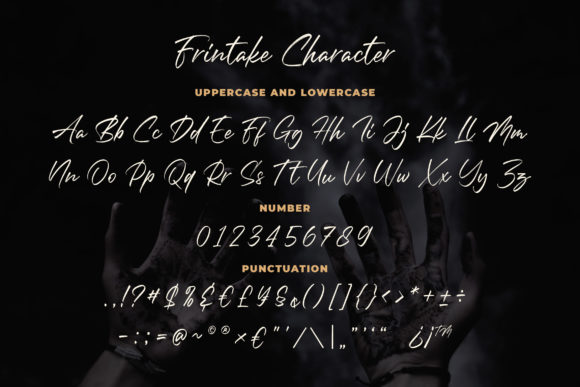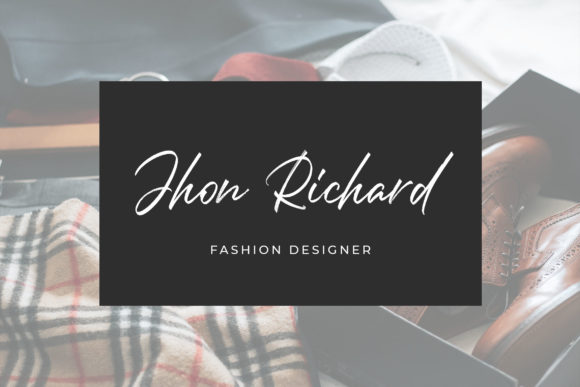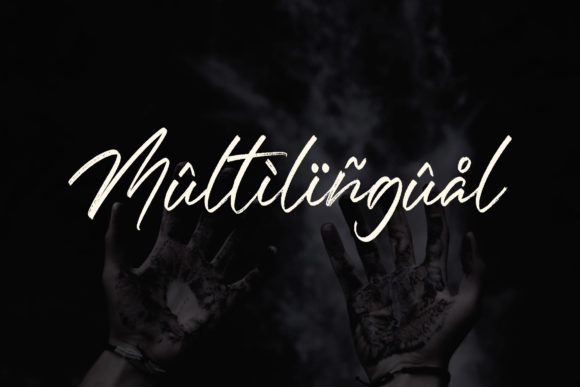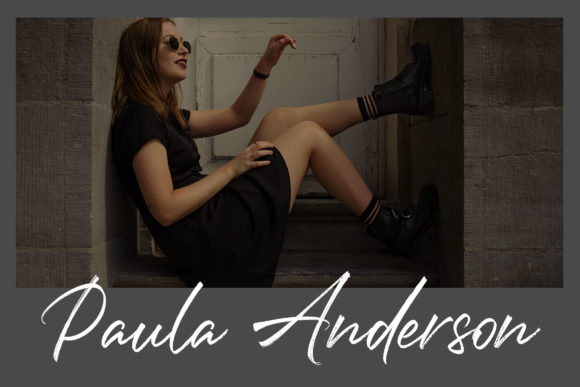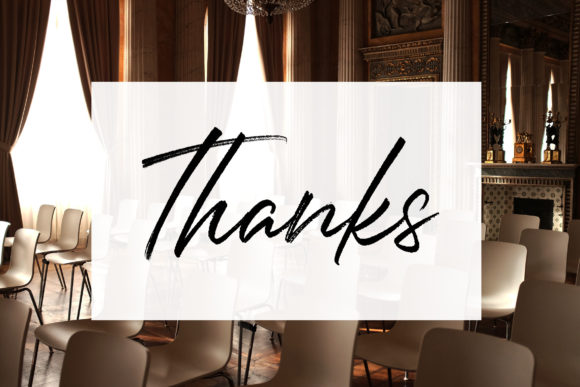
Introducing Frintake Font: The Ultimate Brush Calligraphy Font for Designers and Crafters
Are you a designer or crafter looking for a unique and versatile font to elevate your creative projects? Look no further than Frintake Font, a stunning brush calligraphy font that’s perfect for logos, signatures, branding, and any crafting project. In this article, we’ll dive into the world of Frintake Font, exploring its features, benefits, and uses, and provide you with valuable insights on how to make the most of this incredible font.
What is Frintake Font?
Frintake Font is a beautiful brush calligraphy font that’s designed to add a touch of elegance and sophistication to your designs. With its fluid, hand-painted strokes and natural texture, Frintake Font is perfect for creating eye-catching logos, signatures, and branding materials that stand out from the crowd.
Key Features of Frintake Font
- Unique and Authentic Brush Calligraphy Style: Frintake Font boasts a distinctive brush calligraphy style that’s both modern and classic, making it suitable for a wide range of design applications.
- High-Quality Design: Frintake Font is meticulously crafted with high-quality design principles in mind, ensuring that it looks stunning in both digital and print formats.
- Easy to Read and Versatile: Despite its elegant and cursive nature, Frintake Font is surprisingly easy to read, making it perfect for body text, titles, and headings.
- Multilingual Support: Frintake Font supports multiple languages, allowing you to use it for a variety of international design projects.
Benefits of Using Frintake Font
So, why should you choose Frintake Font for your design projects? Here are just a few benefits of using this incredible font:
- Adds a Touch of Elegance and Sophistication: Frintake Font can instantly elevate your designs, adding a level of sophistication and refinement that’s hard to achieve with standard fonts.
- Perfect for Branding and Identity Design: With its unique and memorable style, Frintake Font is ideal for creating custom logos, signatures, and branding materials that reflect your brand’s personality.
- Versatile and Adaptable: Frintake Font can be used for a wide range of design applications, from digital projects like social media graphics and website headers to print materials like business cards and brochures.
- Time-Saving and Efficient: With Frintake Font, you can create stunning designs in no time, saving you hours of design time and effort.
Using Frintake Font for Crafting Projects
Frintake Font is not just limited to digital design projects; it’s also perfect for crafting and DIY enthusiasts. Here are a few ideas for using Frintake Font in your crafting projects:
- Hand Lettering and Calligraphy: Use Frintake Font as a reference or guide for creating beautiful hand lettering and calligraphy pieces.
- Journaling and Scrapbooking: Add a touch of elegance to your journal pages and scrapbook layouts with Frintake Font.
- DIY Signs and Decor: Use Frintake Font to create stunning DIY signs, wall art, and decorative items for your home or office.
Tips and Tricks for Using Frintake Font
To get the most out of Frintake Font, here are a few tips and tricks to keep in mind:
- Experiment with Different Sizes and Colors: Frintake Font looks stunning in a variety of sizes and colors, so don’t be afraid to experiment and find the perfect combination for your design.
- Pair it with Other Fonts: Frintake Font pairs beautifully with other fonts, so try combining it with a sans-serif or serif font for added visual interest.
- Use it for Headings and Titles: Frintake Font is perfect for headings and titles, so use it to add a touch of elegance and sophistication to your designs.